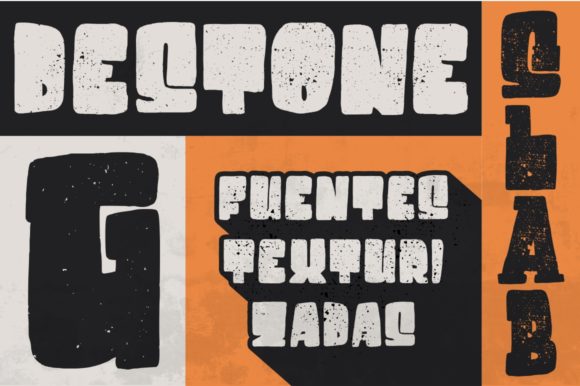
**Introducing Destone Font: The Ultimate Branding Catalyst for Your Creative Endeavors**
In a digital world saturated with visual noise, standing out from the crowd requires a strong brand identity that resonates with your audience. Your logo, the cornerstone of your brand's visual identity, plays a pivotal role in capturing attention, conveying your brand's essence, and creating a lasting impression.
Allow us to introduce Destone Font, the ultimate branding weapon in your creative arsenal. This meticulously crafted slab serif font, brought to life by the talented Garisman Studio, is a fusion of alluring curves and a refreshing urban edge. Its contemporary coolness will inject new life into your branding efforts, leaving an indelible mark on your audience's minds.
**Destone Font: A Symphony of Elegance and Urban Grit**
Destone Font is more than just a collection of letters; it's an artistic expression that embodies both elegance and urban grit. Its carefully designed characters exude a timeless sophistication while maintaining a raw, edgy feel that reflects the vibrant energy of modern life.
With Destone Font, you'll have the power to create logos that resonate with your audience on a deeper level. Its inherent versatility allows it to adapt seamlessly to a wide range of industries and niches. Whether you're a fashion brand seeking to convey effortless chic or a tech company aiming for a cutting-edge aesthetic, Destone Font will effortlessly elevate your brand's image.
**Unlock Your Creative Potential with Destone Font**
Destone Font is not merely a font; it's a gateway to unlocking your creative potential. Its intuitive design and effortless flow make it a joy to use, empowering you to bring your most ambitious branding visions to life.
Imagine crafting logos that exude an air of sophistication and timeless appeal. Logos that instantly grab attention and leave a lasting impression. Logos that perfectly encapsulate your brand's unique personality and values. With Destone Font, all this and more is within your reach.
**Elevate Your Brand to New Heights with Destone Font**
Destone Font is more than just a font; it's an investment in your brand's future. Its versatility and timeless appeal ensure that it will remain a valuable asset in your creative toolkit for years to come.